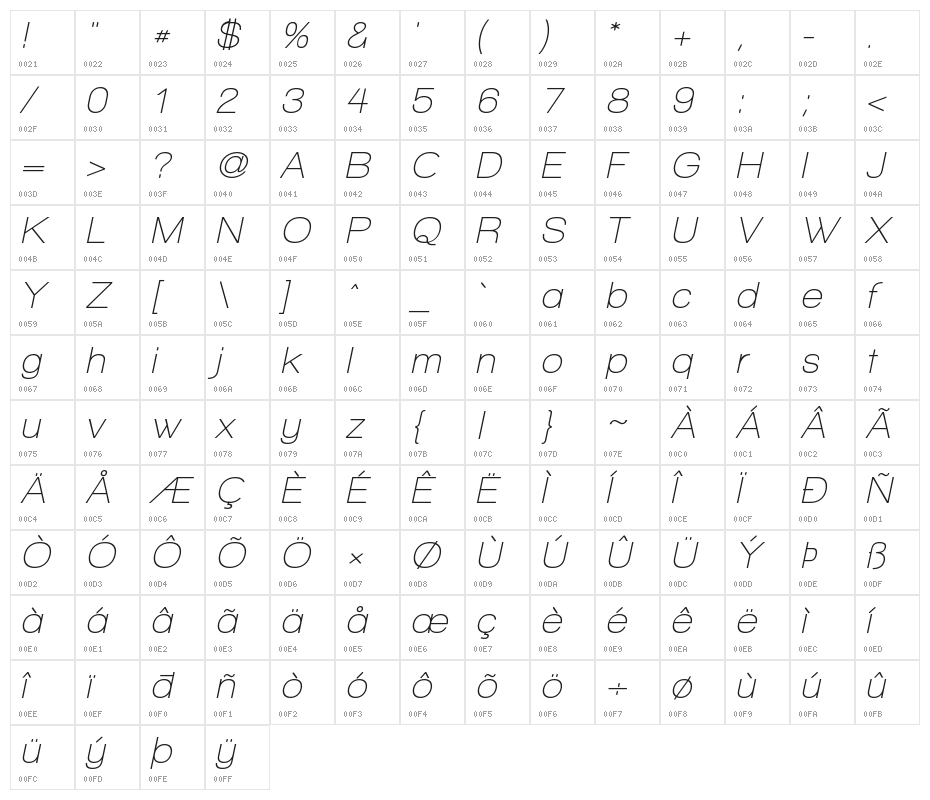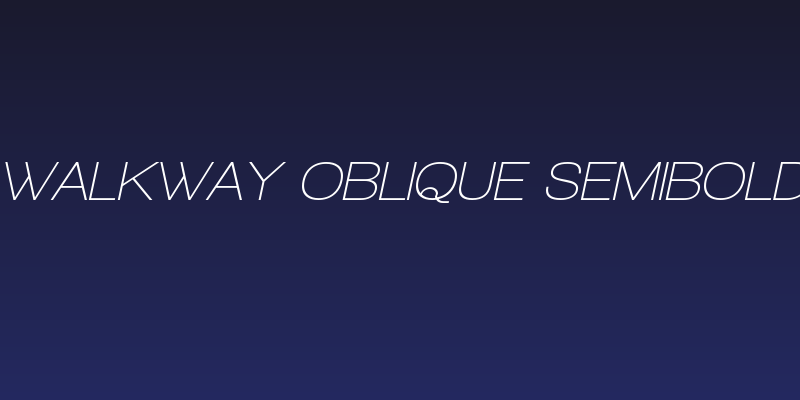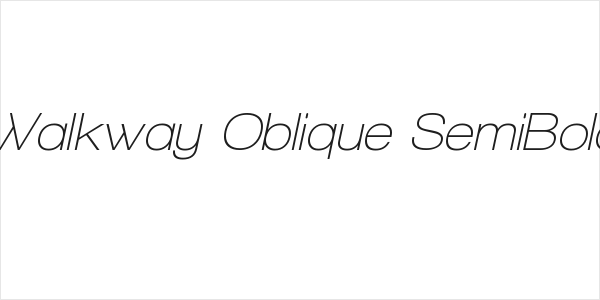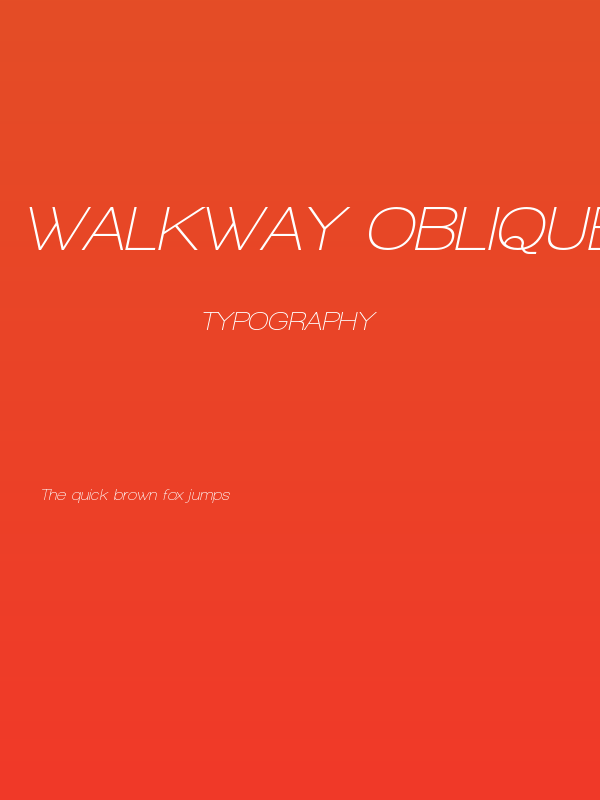
Walkway Oblique SemiBold Font
Walkway Oblique SemiBold Description
This font exhibits a sleek and modern design with an oblique orientation, giving it a dynamic and forward-leaning appearance. The characters are clean and sans-serif, featuring smooth curves and consistent stroke widths that contribute to its semi-bold weight. The overall look is minimalist yet sophisticated, making it suitable for contemporary design projects. The uppercase and lowercase letters maintain a uniform style, while the numerals and special characters are crafted to match the font's streamlined aesthetic. The spacing between characters is balanced, ensuring readability and visual appeal.
| Proposed Projects | Ideal for branding, advertising, modern web design, and editorial layouts. |